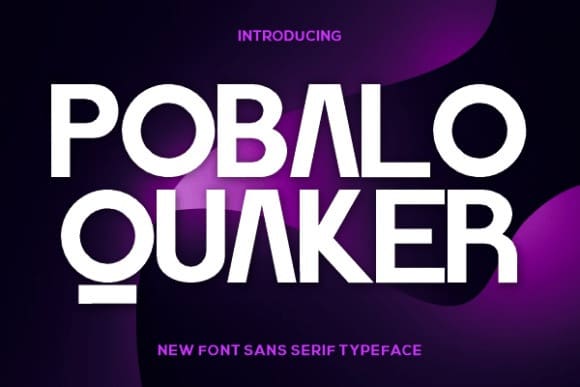
Pobalo Quaker Font
Pobalo Quaker Font, this font is bold, powerful, and has a great vibe. It’s perfect for eye-catching designs, posters, quote graphics, and more!